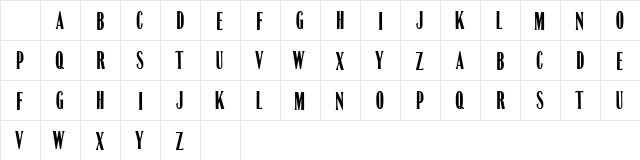
Headline Modified HPLHS
Design Context for Headline Modified Typeface
Headline Modified takes a measured approach to typography — its balanced proportions and neutral character make it a reliable workhorse for both digital and print work.
Pro Tip: Pair Headline Modified with a font of contrasting weight or personality to build a more expressive typographic hierarchy.